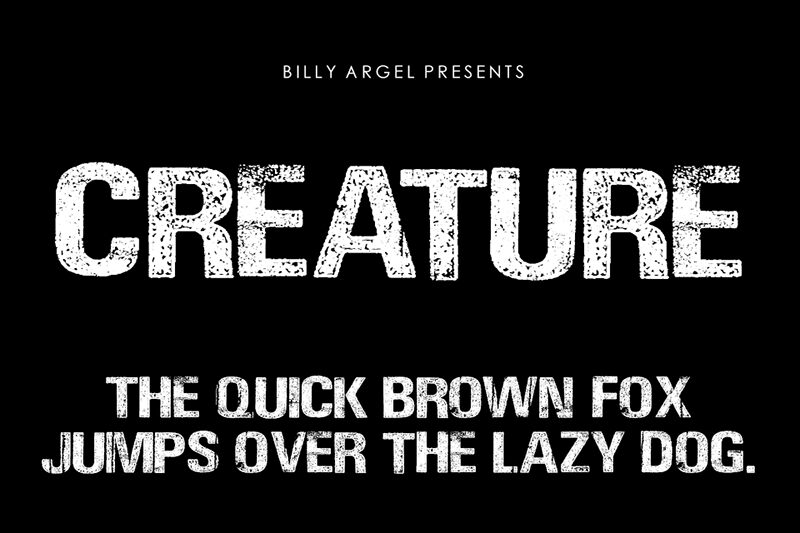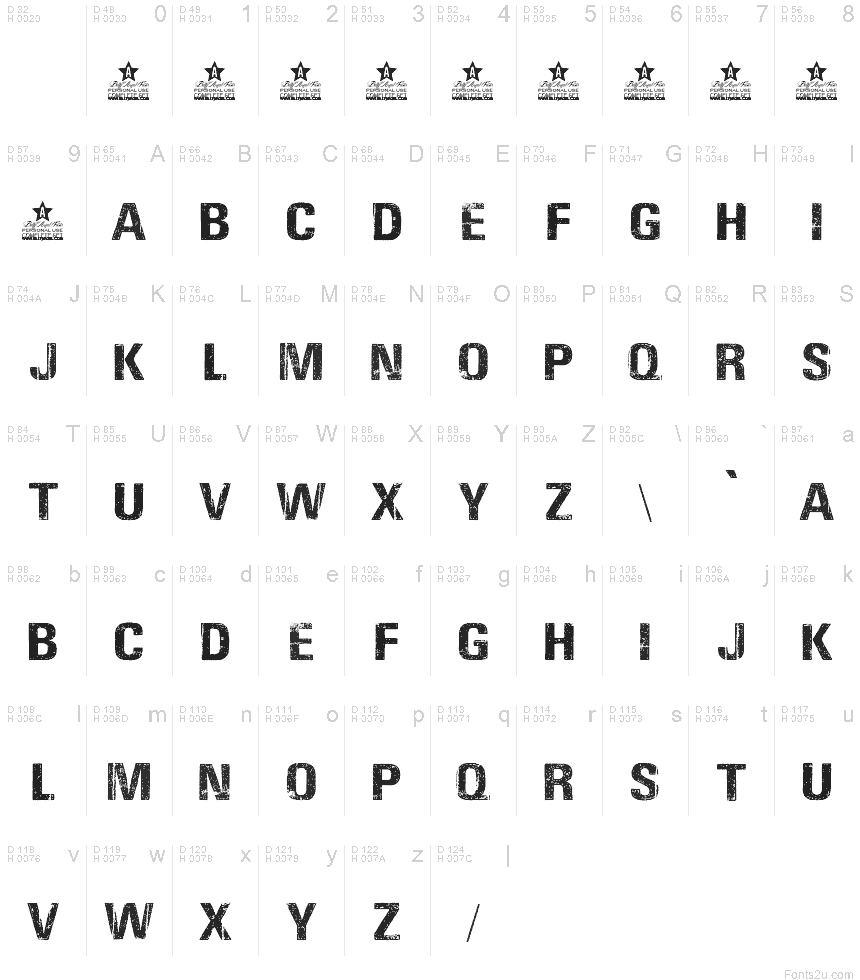
Creature
Creature font by Billy Argel is a free eroded display typeface that drags a gritty, worn-down texture right into your titles. Bold, straight-edged letters are chewed up with pitted, speckled distressing, like ink stamped on rough concrete or scratched off a weathered poster. The result feels raw, noisy, and tactile-great when you want your words to look like they’ve survived something.
Using Creature, your headlines instantly gain a horror, thriller, or urban-grunge edge that works beautifully for movie posters, haunted event flyers, album covers, game titles, book covers, and edgy merch graphics. This free font demands larger sizes, so let it shout in big, wide headlines and pair it with a clean sans serif for body text to keep everything readable.